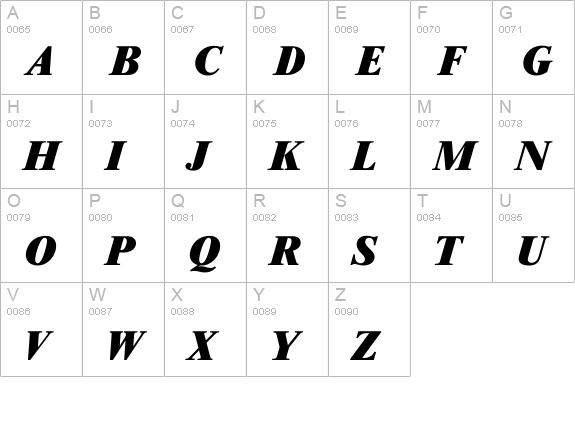
Iriccione ExtraBold is an extra-heavy, attention-grabbing variant in the Iriccione typeface family \xE2\x80\x94 well suited to high-impact headlines, posters, and bold branding.
Iriccione ExtraBold is a bold and expressive font that commands attention with its strong and impactful design. Its thick strokes and powerful presence make it perfect for headlines, titles, and any design that needs to make a bold statement. This font exudes confidence and stands out from the crowd, making it ideal for projects that require a touch of sophistication and professionalism. With its distinct and stylish letterforms, Iriccione ExtraBold adds a modern and contemporary feel to any design. But what sets Iriccione ExtraBold apart is not just its striking appearance. It is also a font that values accessibility and inclusivity. That's why it is available for free download at FontsMarket.com. Yes, you read that right - this remarkable font can be yours without any cost! Whether you are a professional designer, a creative enthusiast, or someone in need of a standout font for a personal project, Iriccione ExtraBold is the perfect choice. Its versatility and ability to make a bold statement will ensure that your designs leave a lasting impression. So, why wait? Dive into the world of Iriccione ExtraBold and unleash your creativity. Download this exceptional font today, free of charge, at FontsMarket.com and take your designs to new heights.